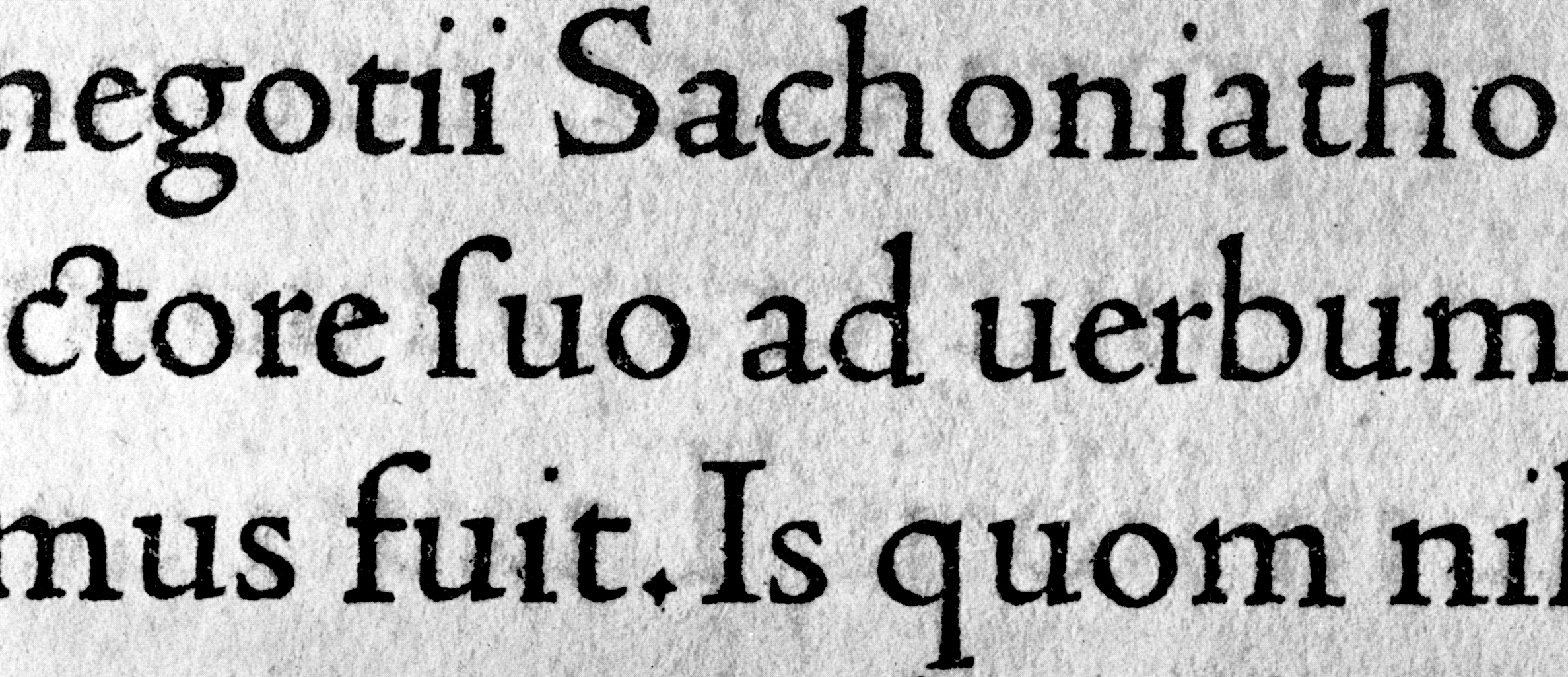
Bible Centaur
I just got my copy of "An Account of the Making of the Oxford Lectern Bible", and am very much enjoying it.
Some questions:
2. Even if I don't post full scans, do people want to see details? I can also post a scan of the Oxford Lectern Bible page reproduced in Stanley Morison's The Typographic Book.
3. The font used to set the Oxford Lectern Bible is in fact 18-point "Bible Centaur". This font is an adaptation of the original Centaur, with some modifications: ascenders and descenders are shortened; thirteen lowercase letters are redrawn, mostly to make them more condensed (Rogers doesn't give the full list, but he identifies bdfgkljonpqu and maybe y, to which I'd add e and t, which is of course 14 or 15); and the Centaur numbers are replaced with Plantin Light OSF. The quirkiness factor has definitely gone down; in addition to the numbers, the tail of the 'j' is now solidly in the classical Aldine tradition.
4. If I'm going to work on this font, my goal would probably be an optically scaled series containing both Centaur and Bible Centaur, as well as the large chapter initial caps. How much interest do Typophiles think there would be in such a thing?
5. I'm also trying to understand the ethics of releasing and naming revivals, and want to make sure to do everything right. My gut feeling is that the name "Bible Centaur", while very appealing for its historical accuracy, cuts too close to Agfa Monotype's valid trademark. Other choices include "Rogers" (by which name a version of Centaur was briefly sold by Commercial Controls for use on the Justowriter), or "Oxford Lectern Bible". Of course, for the last, I'd definitely want to work with the people at Oxford University Press.
6. Does anyone know of a library or other collection that has the Oxford Lectern Bible and would be open to high-resolution scanning? I see the Donohue Rare Book Room at University of San Francisco has a copy, and they're reasonably close by.
This font has captured my heart in a way that few others have. Originally, I was planning on working on ATF Cloister, but now after some study I feel that Centaur (upon which Cloister was based after Rogers rebuffed ATF's effort to buy rights) is superior in every respect.
> How much interest do Typophiles think there would be in such a thing?
A good optically-scaled Centaur? Are you kidding?!
Not even Monotype did a really great job scaling it - I think they only had four masters.
But if it'll be your first type design project, good effin' luck doing it justice! :-)
> open to high-resolution scanning?
You'll have a hard time finding a rare book collection that allows such a thing - UCLA for example gives great "hands-on" access to everything they have, but totally refuse any scanning suggestions (at least to regular people). Your best bet might be an eloquent, passionate personal letter to a private owner. Or maybe Octavo?
Reinterpreting Centaur at different sizes I think is basically redoing Jenson, because Centaur is an interpretation of Jenson.
Since Abobe Jenson Pro of Robert Slimbach is a very impressive optically scaled version of Jenson, if I were you I would want to have at least one very strong idea on what I want to do differently from Slimbach before starting. Incidentally, Jenson Pro includes a 'light' version, optically scaled, which is closer to Centaur than the regular version.
Raph, what's your best source for Centaur samples? Do you have the specimen printer by Rogers? I have the fascimile, so it's not as good, but you might be able to find the original. What about access to the actual metal type? You could make letterpress prints and work from those. The advantage is you could under-ink and under-impress it to get closer to the actual "outlines". You could even place the sorts face down on a scanner! I've done that with great success, actually.
William, Adobe's Jenson is not Centaur in two ways:
1) It's had that Northern California fatal cuteness applied to it.
2) The optical scaling is too mild.
>William, Adobe's Jenson is not Centaur in two ways:
1) It's had that Northern California fatal cuteness applied to it.
2) The optical scaling is too mild.
Well that's your take on it. If you translate those general comments into specific differences in glyphs, then you would have a starting point for a different Jenson.
I don't know what Raph's is, but all I'm saying is that you are going to have to do some variation to take into account digital & offset printing vs metal and letter press. And that means you are going to have to change things.
Last word to Jenson Adobe. I do believe Centaur in the original version ist more close to Jensons real style than the Adobe font which is to my eyes too round too soft and some letters aren’t very nice especiall ‘g’ and ‘a’. Although I do admire the abstract and nice modern serif treatment in enlargement.